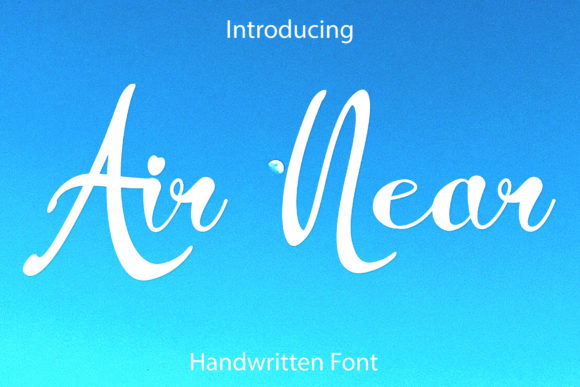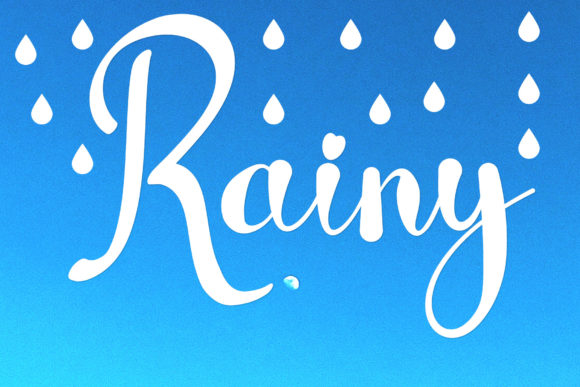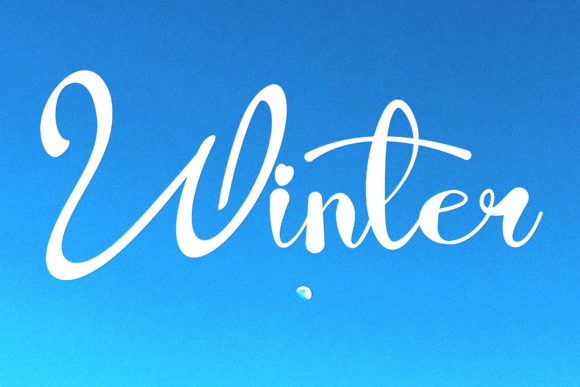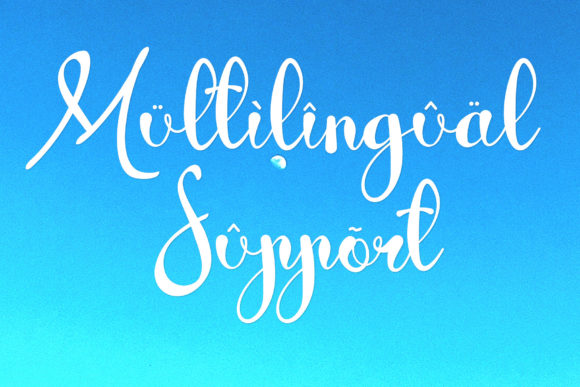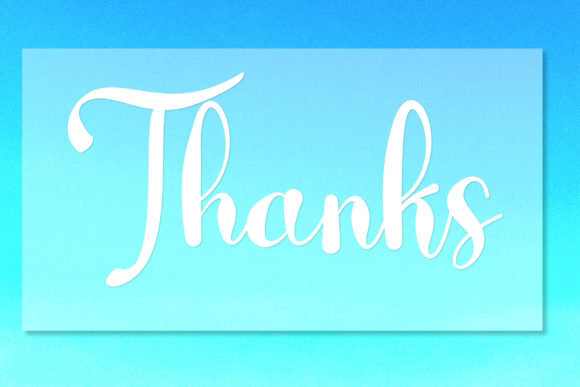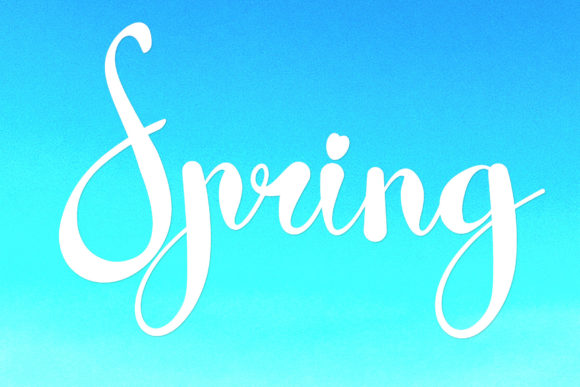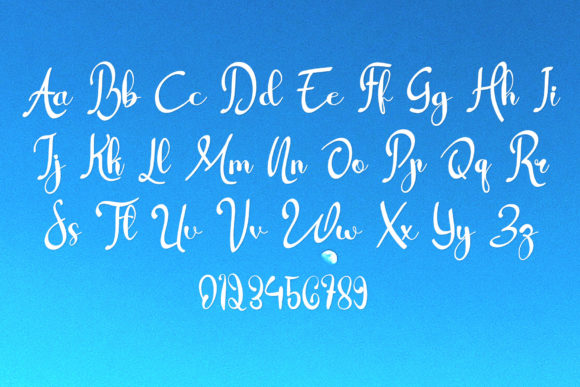
Air Near Font
About Air Near Font
Air Near is a stylish and delicate script font that adds a touch of sophistication to a variety of creative projects. With its elegant design, this font is versatile and well-suited for crafting ideas ranging from cards and branding to labels and more.
The stylish and delicate qualities of Air Near make it an excellent choice for projects that require a refined and elegant script. Whether used in cards, invitations, or branding materials, this font brings an air of sophistication to your text.
In branding, Air Near’s stylish script can contribute to a distinctive and memorable visual identity. The font’s delicate characters add a touch of uniqueness, making your brand stand out with elegance.
For cards and invitations, Air Near’s elegant script creates a harmonious and aesthetically pleasing look. The font’s versatility allows it to adapt seamlessly to different themes and occasions, adding a touch of sophistication to your designs.
Whether applied to digital or print materials, Air Near stands out with its stylish and delicate design. The font’s ability to convey sophistication and elegance adds a level of visual appeal to your projects, making them more refined and captivating.
In summary, Air Near is more than just a font; it’s a stylish and delicate script font that enhances the visual allure of your designs. Whether used in cards, branding, labels, or other crafting ideas, Air Near brings an elegant and sophisticated aesthetic that elevates your typographic compositions with grace and style.